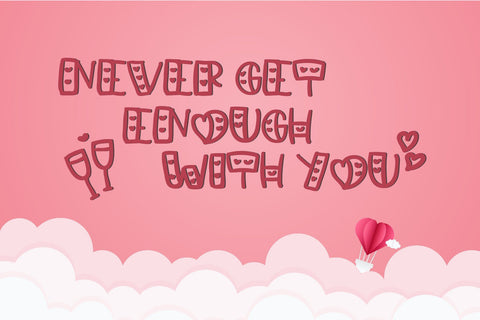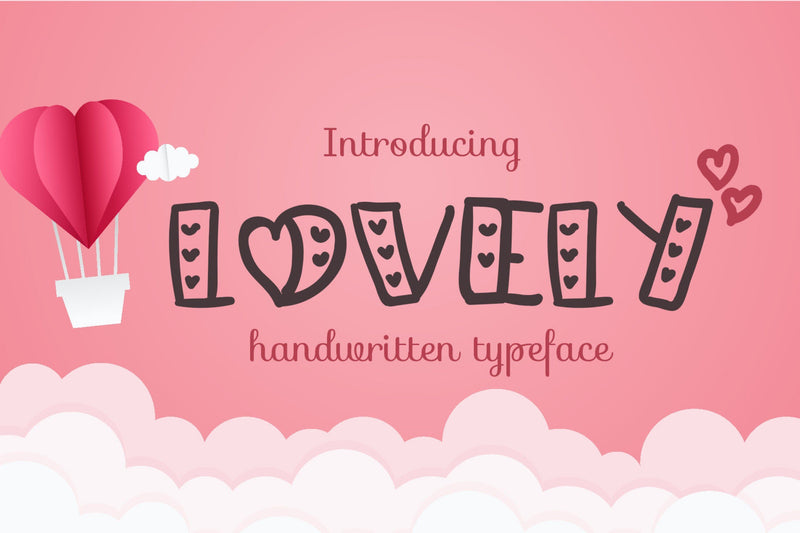
Lovely - Love Handwritten Font
Lovely, the handwritten typeface. It's a cute love-theme typeface for your lovely moment! Spread the lovely words with this lovely typeface!
Also great for cards, posters, t-shirt, mug, or anything love-related crafts. It has 10 extra doodles and simply use them by typing 0-9 on your keyboard!
Lovely Features
- 10 love doodles (0-9)
- Symbols